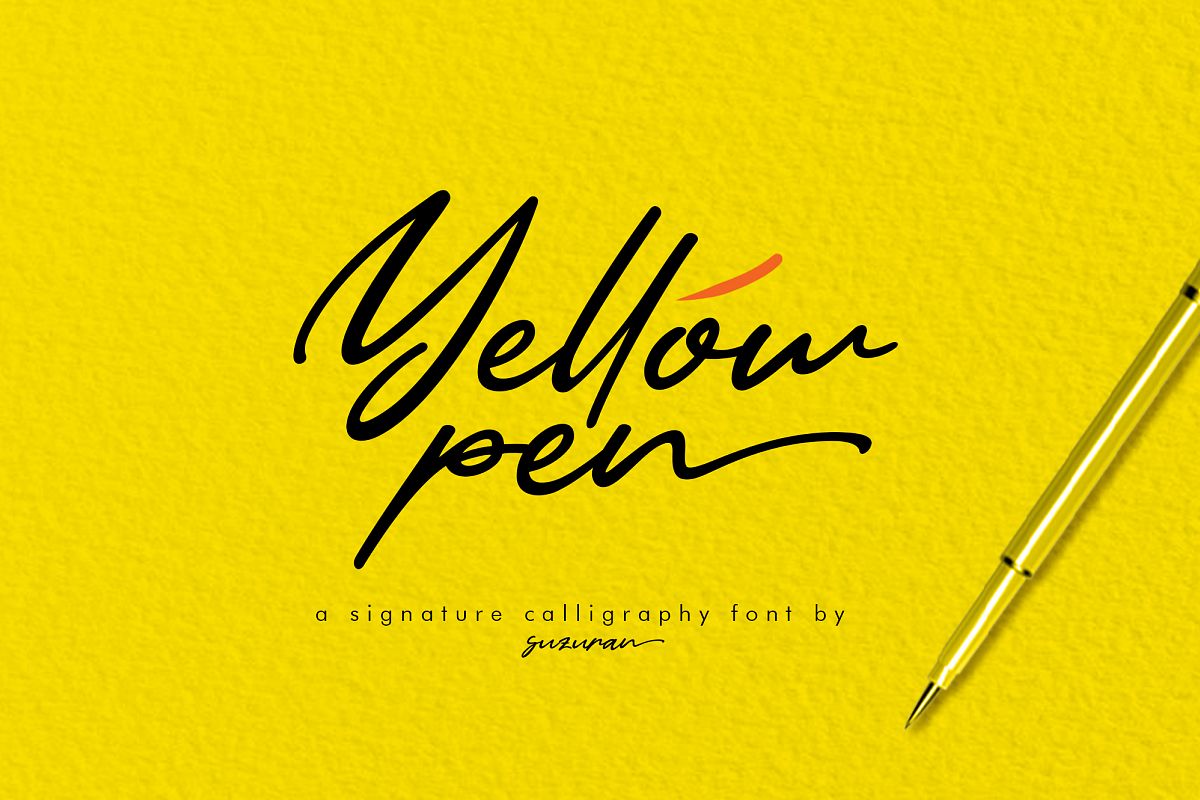
Yellow Pen Script
Introducing the Yellow Pen script, a font that is very fresh and unique style handmade + bonus font, Night in Kansas for your project. Yellow Pen script is perfectly suited to logo, stationery, poster, apparel, branding, wedding invitation, card, tagline, layout design, and much more !!.